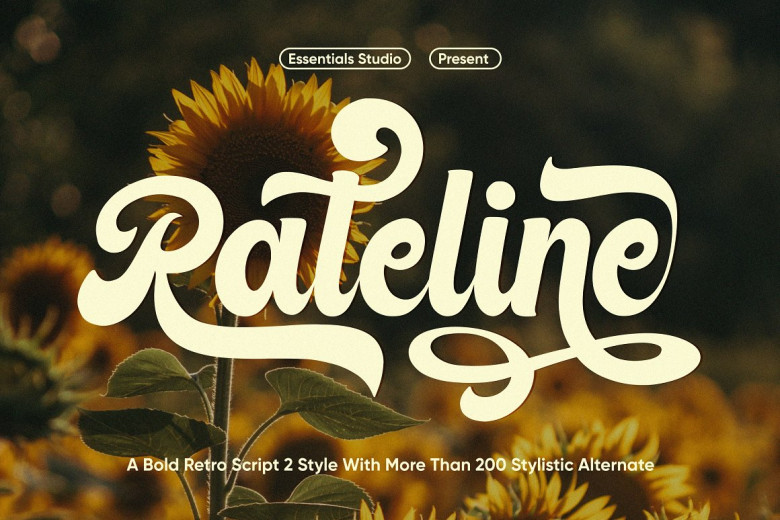
Rateline Font
Rateline is a retro bold script calligraphy font that includes 2 styles with more than 200 stylish alternates. Rateline is great for product packaging, branding projects, magazines, social media, weddings, or for expressing words on top of backgrounds.
Rateline Calligraphy Script Font